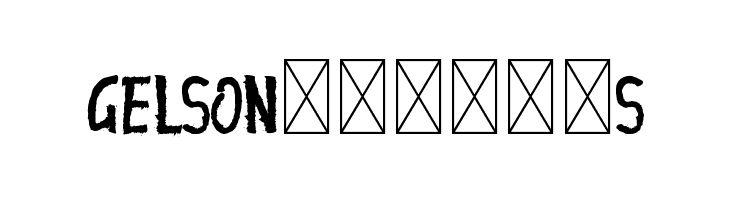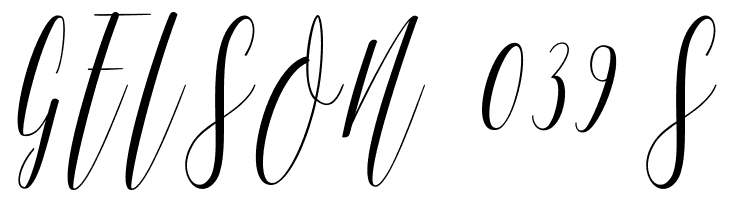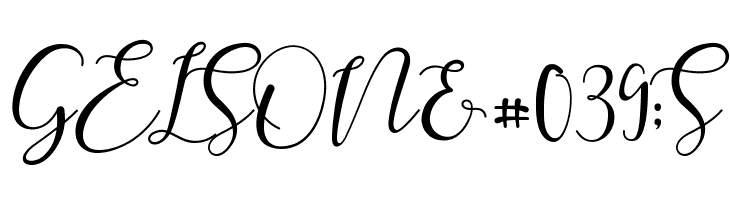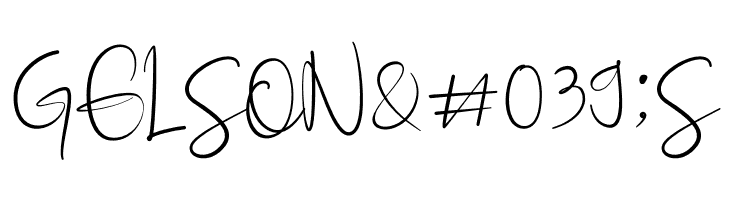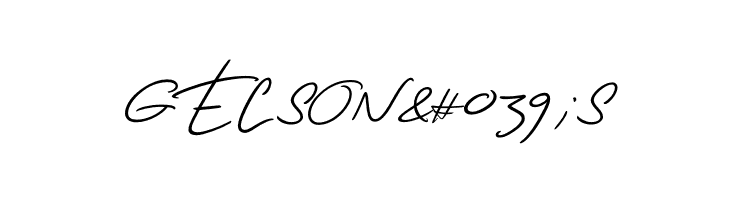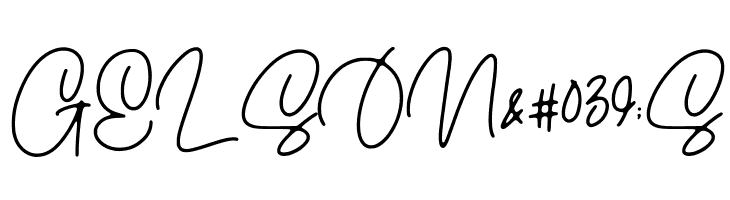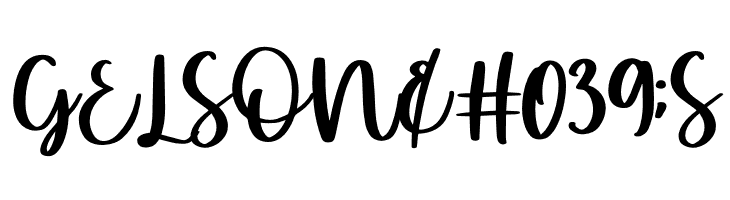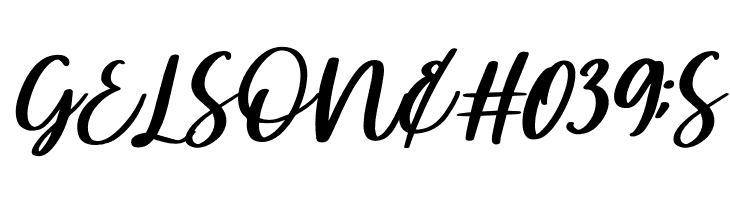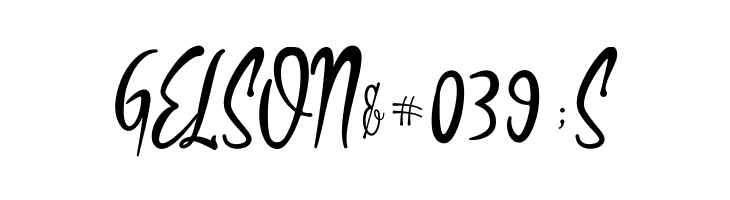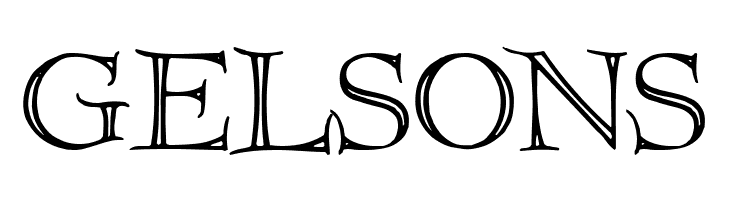
A casual, elegant handwritten font with fluid, connected strokes.
A lively and energetic script font with bold, flowing cursive letterforms.
A bold, hand-drawn font with rough, textured edges and a dynamic style.
A playful, handwritten-style font with a whimsical and friendly appearance.
A bold, brush-style font with dynamic and expressive strokes.
A bold, rounded font with a modern and playful style.
A bold, distressed font with a grunge, weathered appearance.
A dynamic font with bold uppercase and elegant cursive lowercase letters.
A graceful and elegant script font with flowing, cursive strokes.
An elegant and flowing script font with smooth, cursive letterforms.
A bold, expressive handwritten font with brush-like strokes.
A bold, hand-painted style font with expressive brush-like strokes.
A bold, flowing script font with a handwritten style.
A modern, cursive script font with a bold, italic style.
A bold, expressive handwritten font with fluid, dynamic strokes.
A playful, handwritten cursive font with elegant, flowing strokes.
A lively and expressive handwritten font with fluid strokes and dynamic character.
A bold, hand-drawn font with dynamic, sweeping strokes.
A playful, whimsical handwritten font with flowing, cursive-like strokes.
A futuristic, geometric font with angular letterforms and a digital aesthetic.
A futuristic, geometric font with bold, angular lines and a digital aesthetic.
A bold, angular font with a futuristic and digital aesthetic.